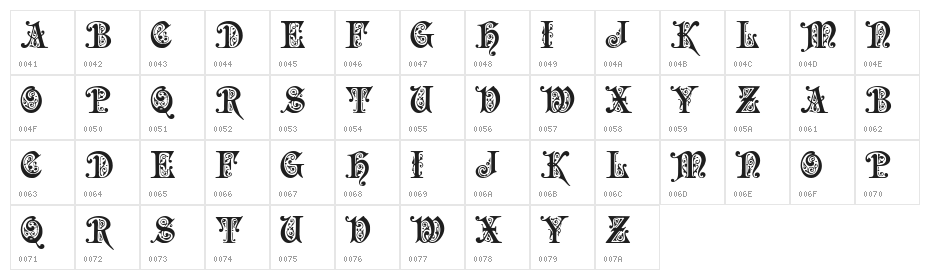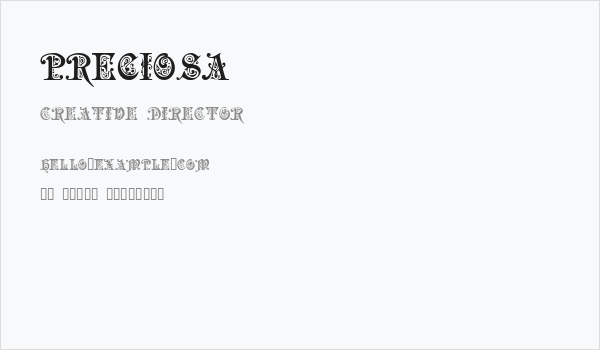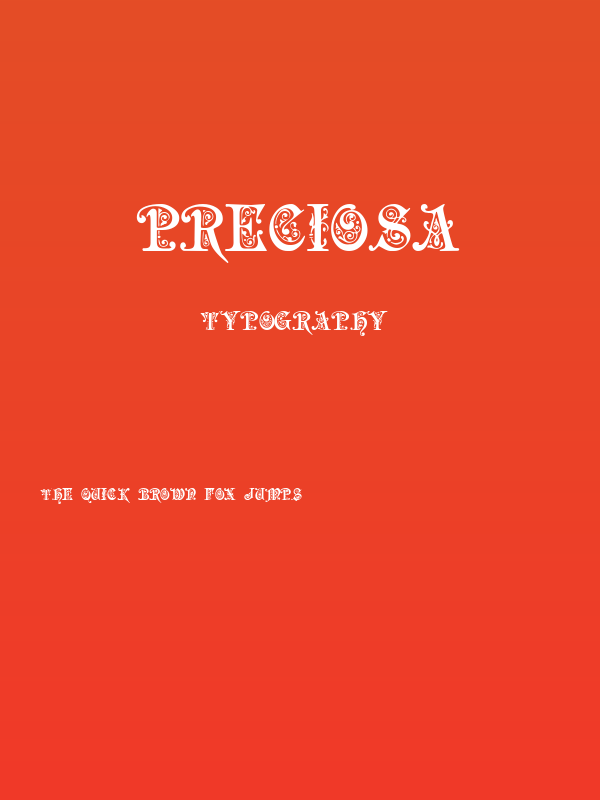
Preciosa Font
| 用途 | Headlines, Logos, Decorative text |
| おすすめプロジェクト | Ideal for wedding invitations, vintage-themed posters, branding for luxury products, or any project requiring a classic and elegant touch. |